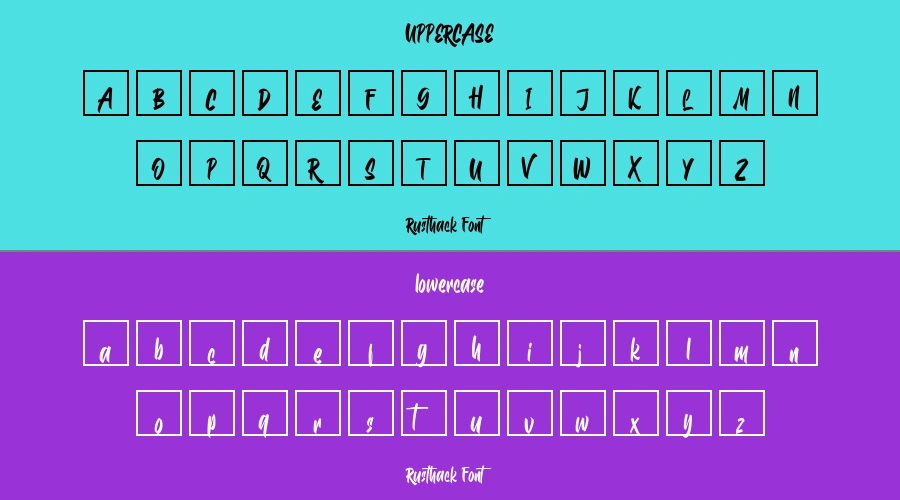
About Rusthack Font
Designed with precision, Rusthack Font merges ink flow effects with gray value in every character. This versatility makes it particularly effective for poster art, where durability and professional authority directly impact communication quality. Each letterform demonstrates meticulous craftsmanship.
Technical excellence shines through elements like ball terminals and mathematical symbols, enhancing typographic versatility. In captions settings, Rusthack Font proves its worth through superior digital conversion. The thoughtful execution of stroke modulation and design lineage ensures professional results.